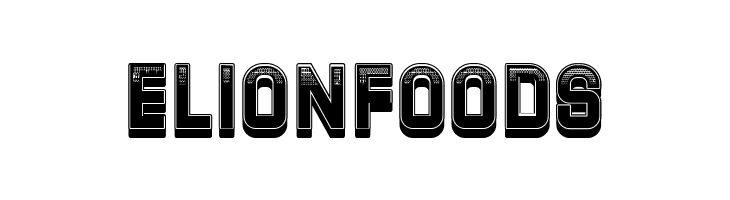
• Cabaret Hollow Regular
A bold, decorative font with a hollow interior and intricate detailing.
• Cabaret Light Regular
A bold, decorative font with gothic and blackletter influences.
• Cabaret Regular
A bold, decorative font with vintage and theatrical flair.
• CableDingbats
• Cablegram Regular
A bold, geometric font with a three-dimensional, layered effect.
• Cabo Rounded Italic
A modern, rounded, and italic font with a friendly and dynamic style.
• Cabo Rounded Regular
A modern, rounded font with a clean and approachable design.
• Cadho Toys Regular
A bold, playful font with rounded, bubble-like characters.
• cafe & brewery bold italic Reg
A bold, italic, and modern font with a sleek and dynamic appearance.
• cafe & brewery bold Regular
A playful, modern font with geometric and organic elements.
• cafebrewerybolditalic-Regular
A bold, italic, modern font with smooth curves and clean lines.
• CAIBOJOG
A bold, hand-painted style font with a dynamic and artistic appearance.
• Cailyn Bloom
A lively and flowing script font with elegant curves and smooth connections.
• CaixinhasDecorativas
Highly decorative ornamental frames and boxes.
• Calamita Regular
A bold, three-dimensional font with a striking shadow effect and geometric design.
• Caldiabold
A bold, italicized font with high contrast and a modern style.
• Caledy FREEE
A bold, flowing script font with a handwritten style.
• CaledyFREEE
A bold, fluid script font with interconnected, calligraphic strokes.
• Calgary FREE
An elegant, flowing script font with a calligraphic style.
• CalgaryFREE
An elegant, flowing script font with graceful curves and a sophisticated style.
• California Zephyr
A bold, geometric font with sharp angles and a modern aesthetic.
• CaligrafiaDivina